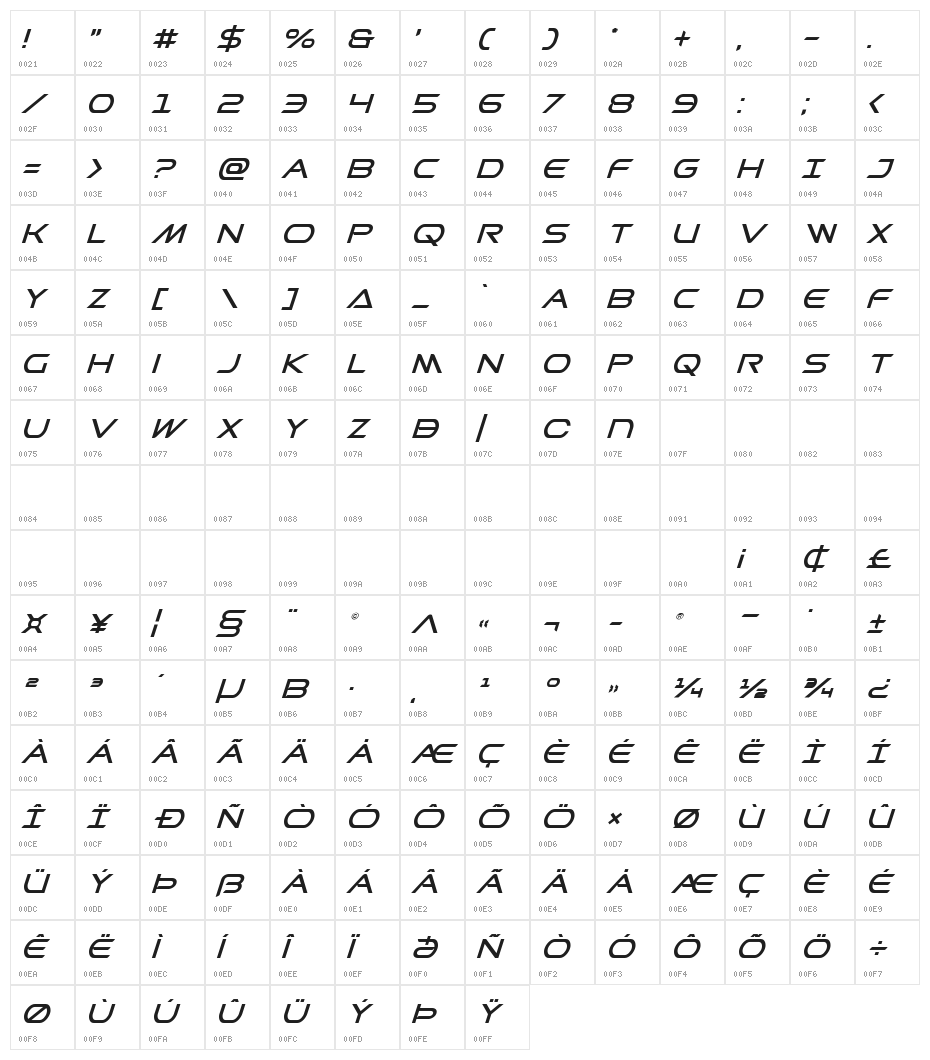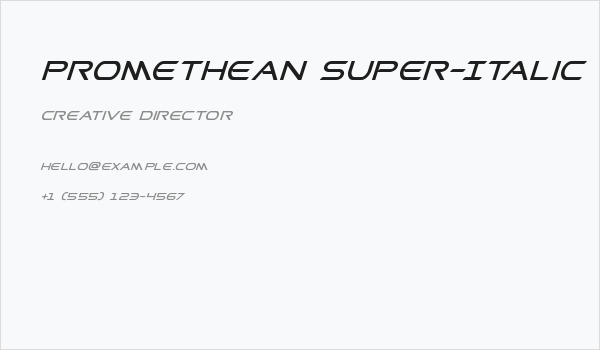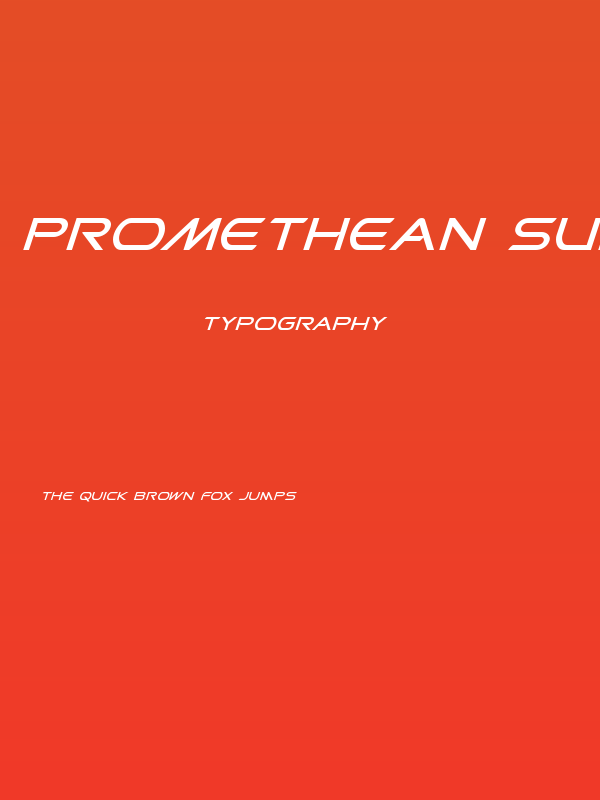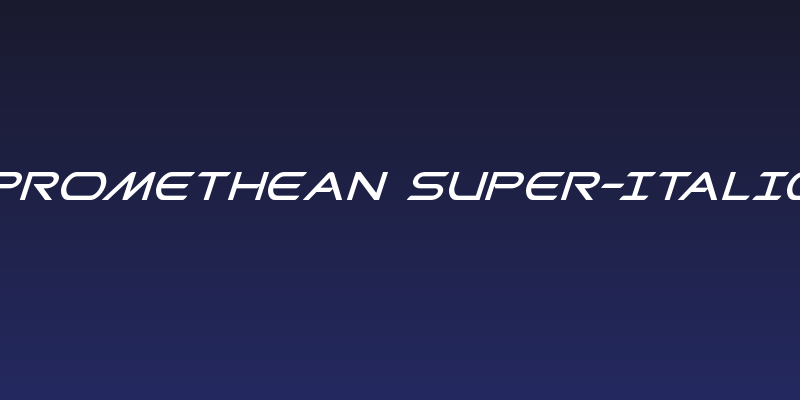
Promethean Super-Italic Font
Promethean Super-Italic Description
This font exhibits a dynamic and futuristic style with its italicized form, giving a sense of movement and speed. The characters are sleek and angular, with a consistent slant that enhances its modern appeal. The uppercase and lowercase letters maintain a uniform width, contributing to a cohesive look. The numerals and special characters follow the same design principles, ensuring harmony across all glyphs. The font's clean lines and sharp edges make it suitable for contemporary design projects, where a sense of innovation and forward-thinking is desired.
| Use Case | Logos, Headlines, Digital interfaces |
| Proposed Projects | Ideal for technology branding, automotive designs, sports team logos, and modern digital interfaces. |